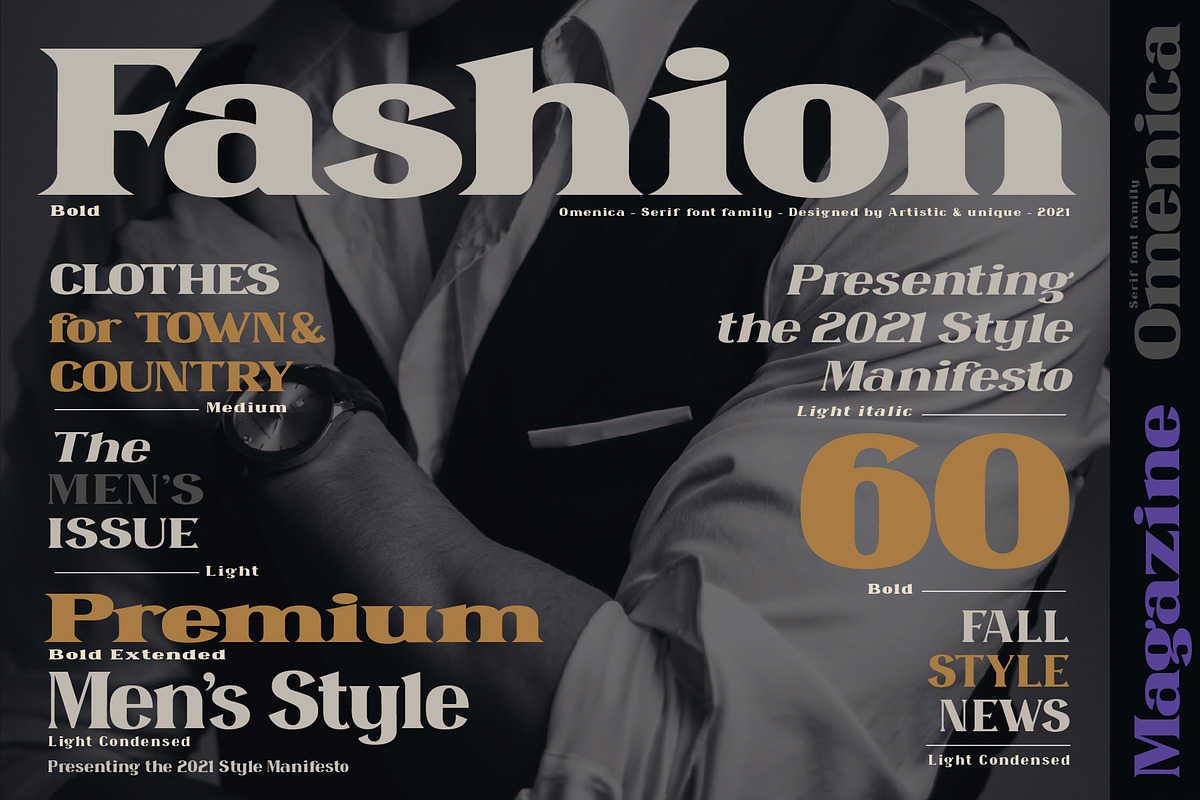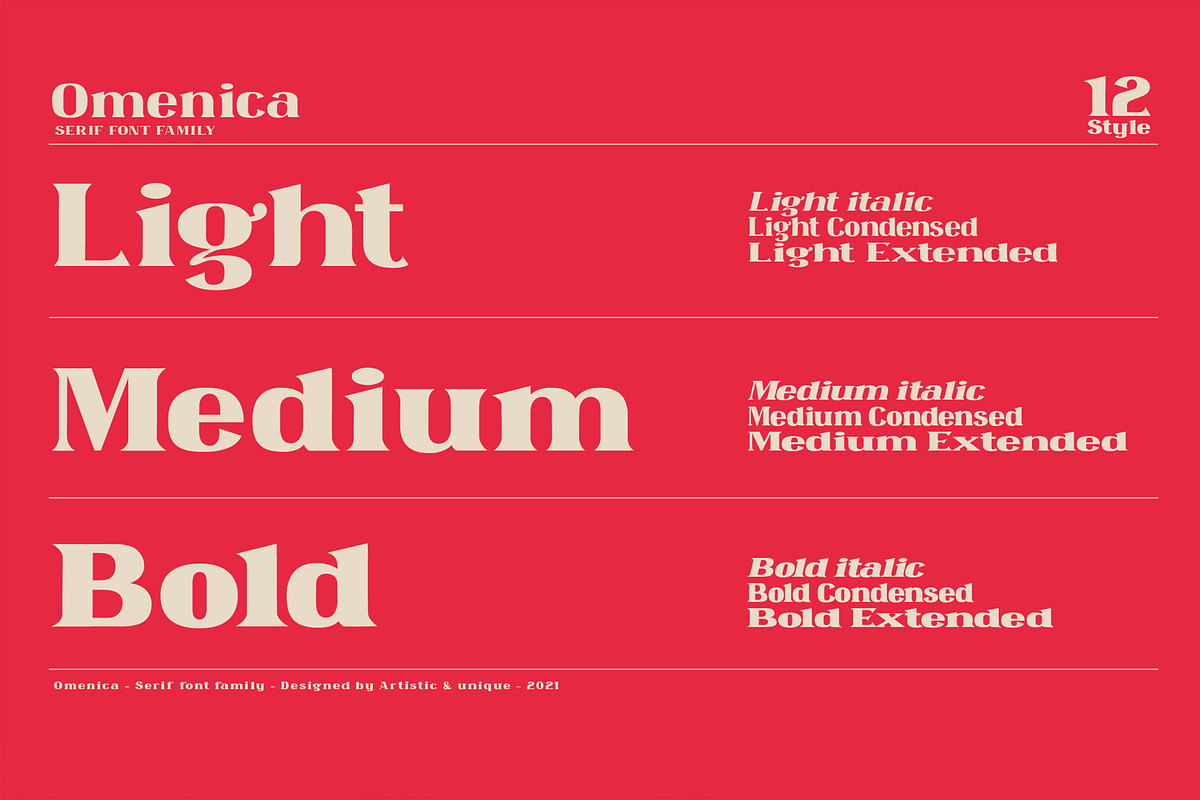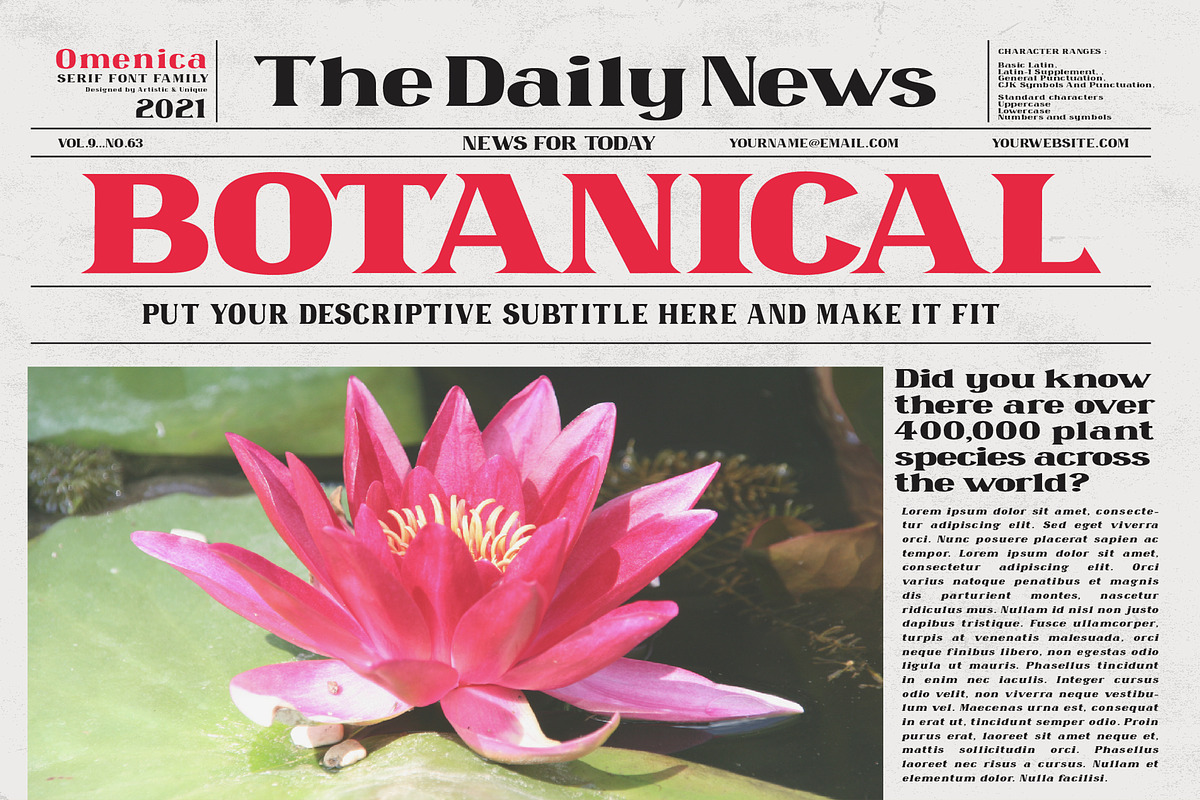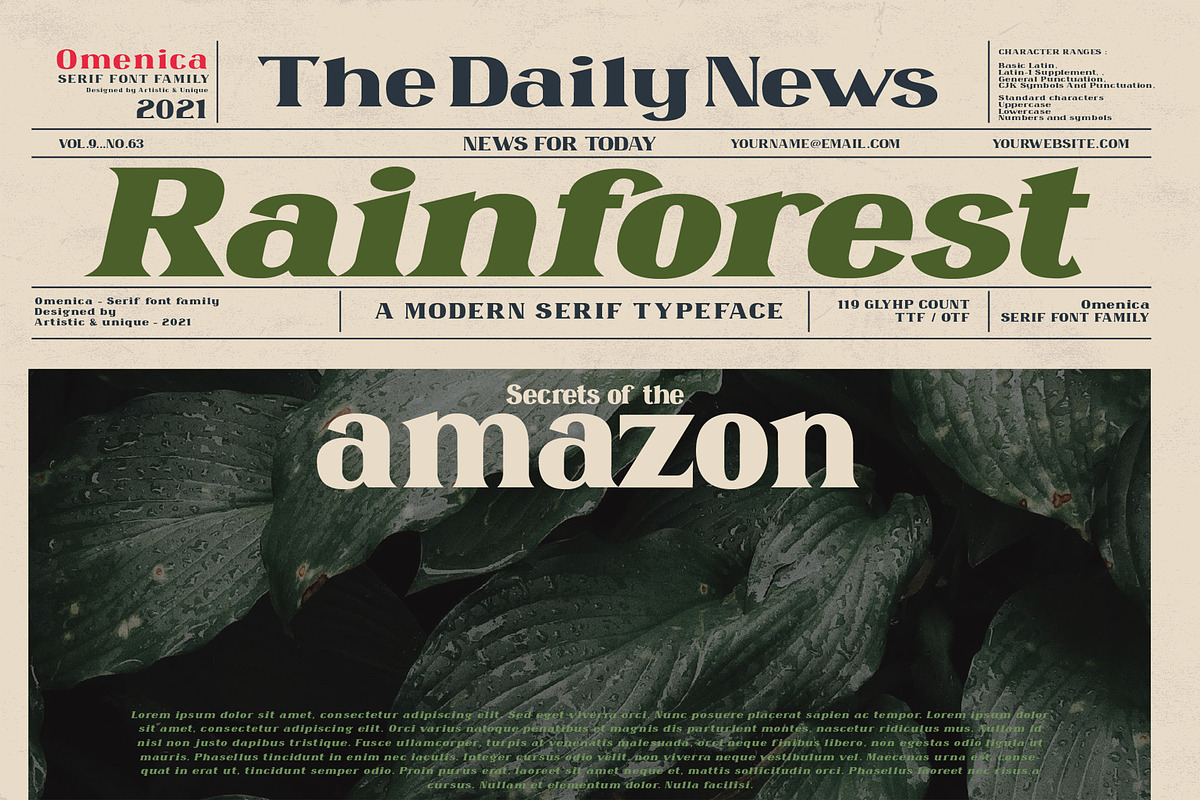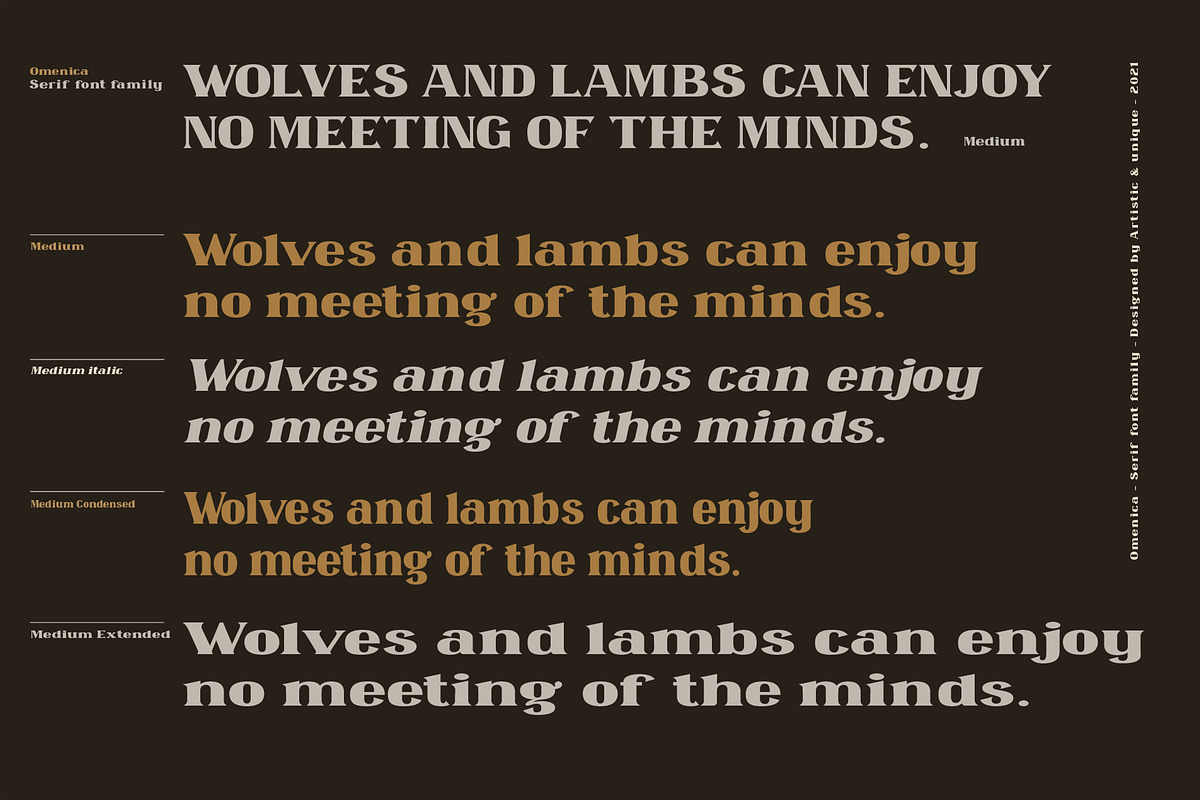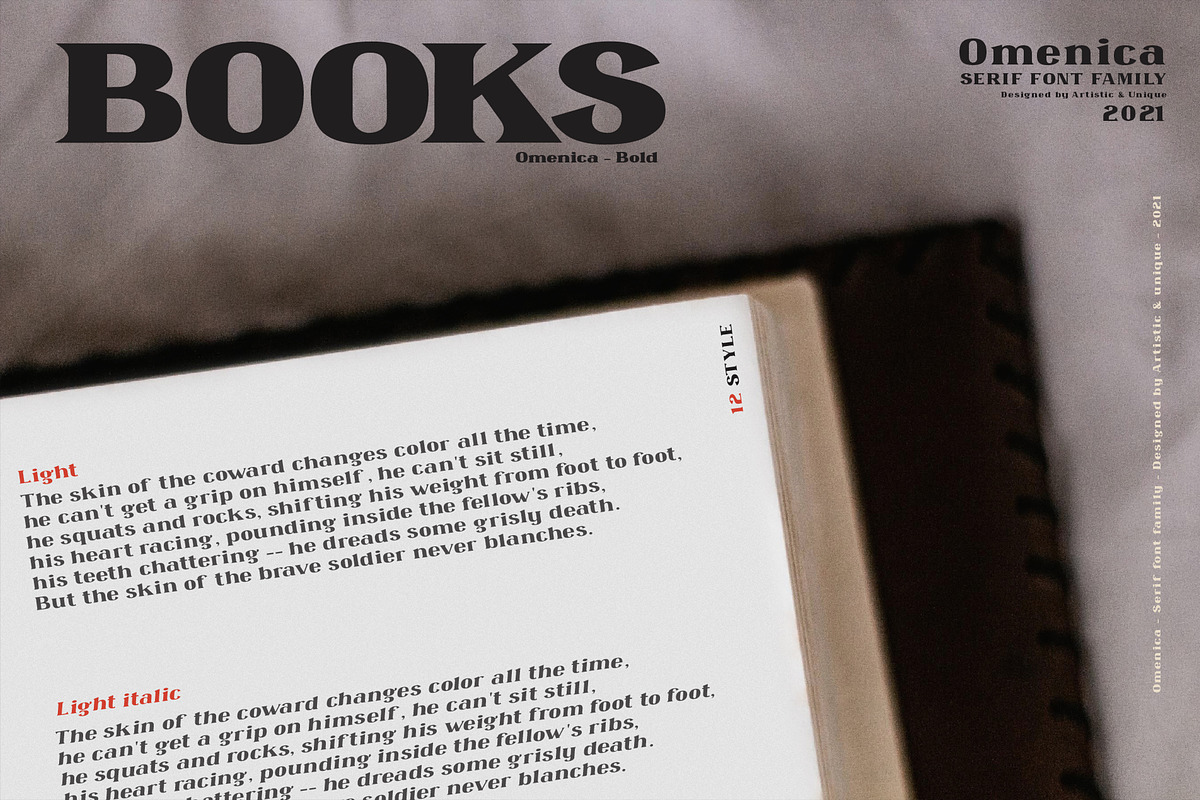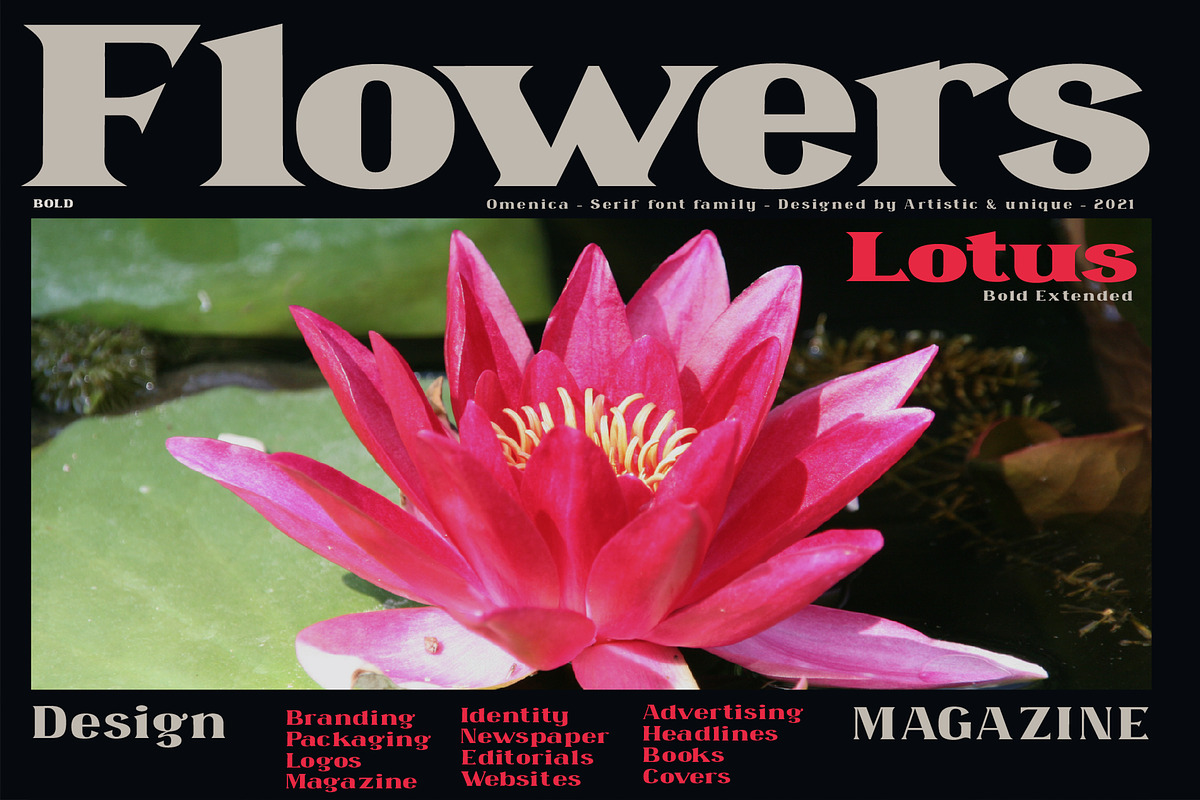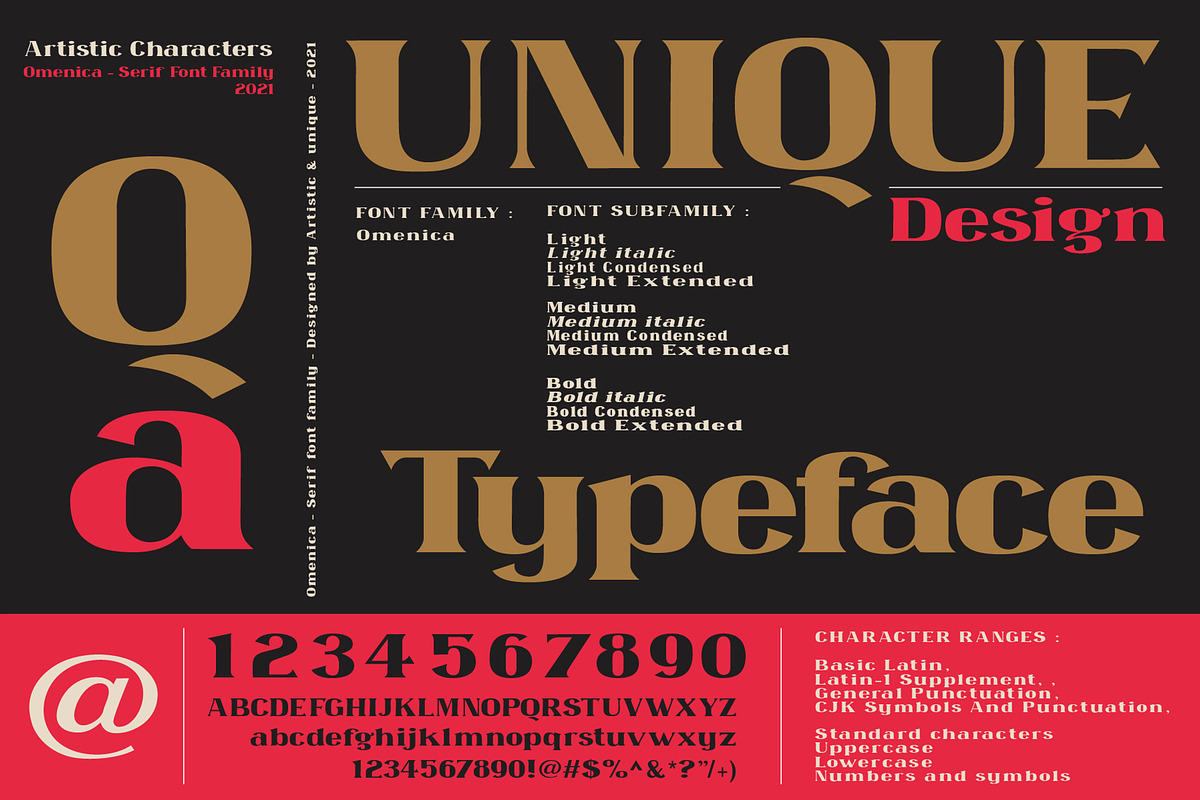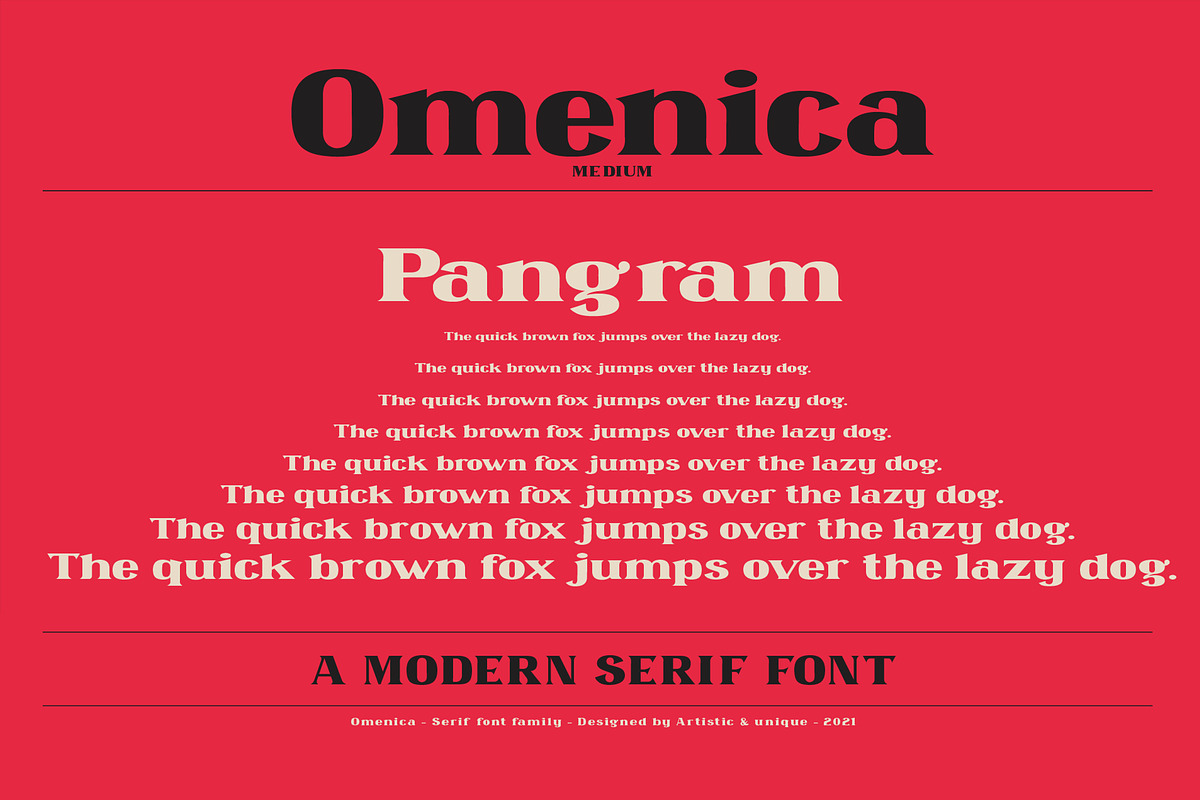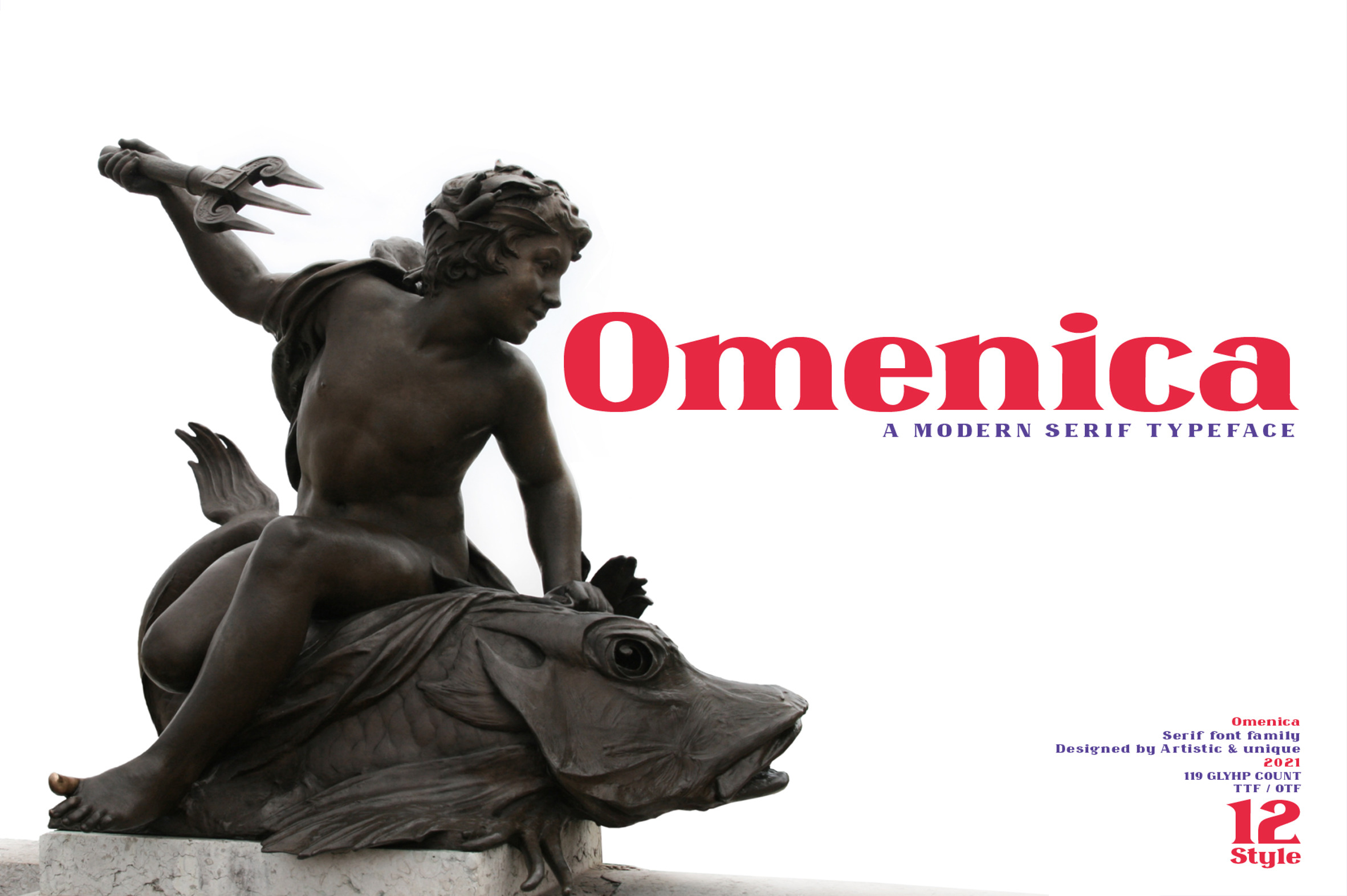
Omenica - Serif font Family
INTRODUCING
By its very nature, Omenica is ideal for creating any magazine or newspaper oriented project with standard fonts. You can create creative and stylish designs especially with titles on posters, magazines, albums or book covers.
Sharp serif structure and harmony of characters give your words an aesthetic appearance.
This font offers alternative looks with 12 different styles to help you discover the best mood for your projects, from body text to big headlines, classic to modern and bold looks.
Well suited for books and magazines, magazine covers, editorials, headlines, websites, logos, invitations, branding, advertising and more.
FONT FAMILY :
- Omenica
FONT SUBFAMILY :
- Light
- Light italic
- Light Condensed
- Light Extended
- Medium
- Medium italic
- Medium Condensed
- Medium Extended
- Bold
- Bold italic
- Bold Condensed
- Bold Extended
- Uppercase typeface
- Lowercase typeface
Symbols
With this font you can create your unique designs.